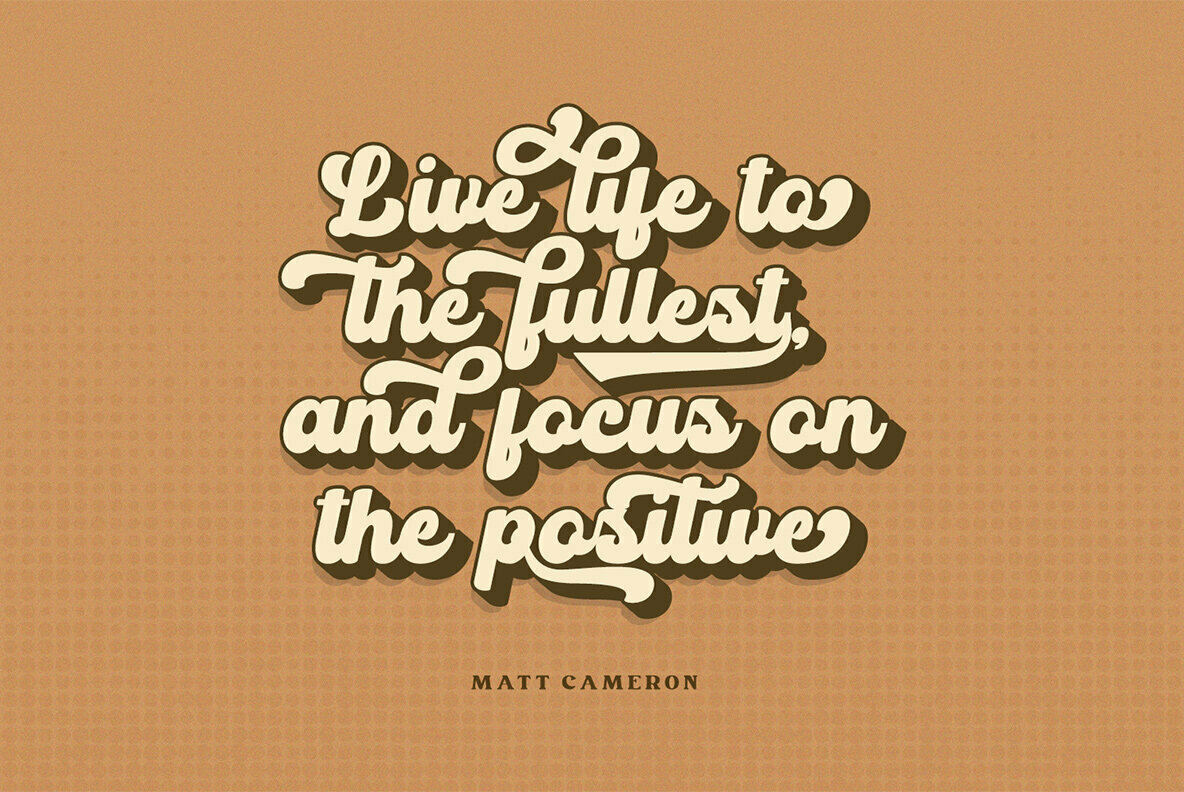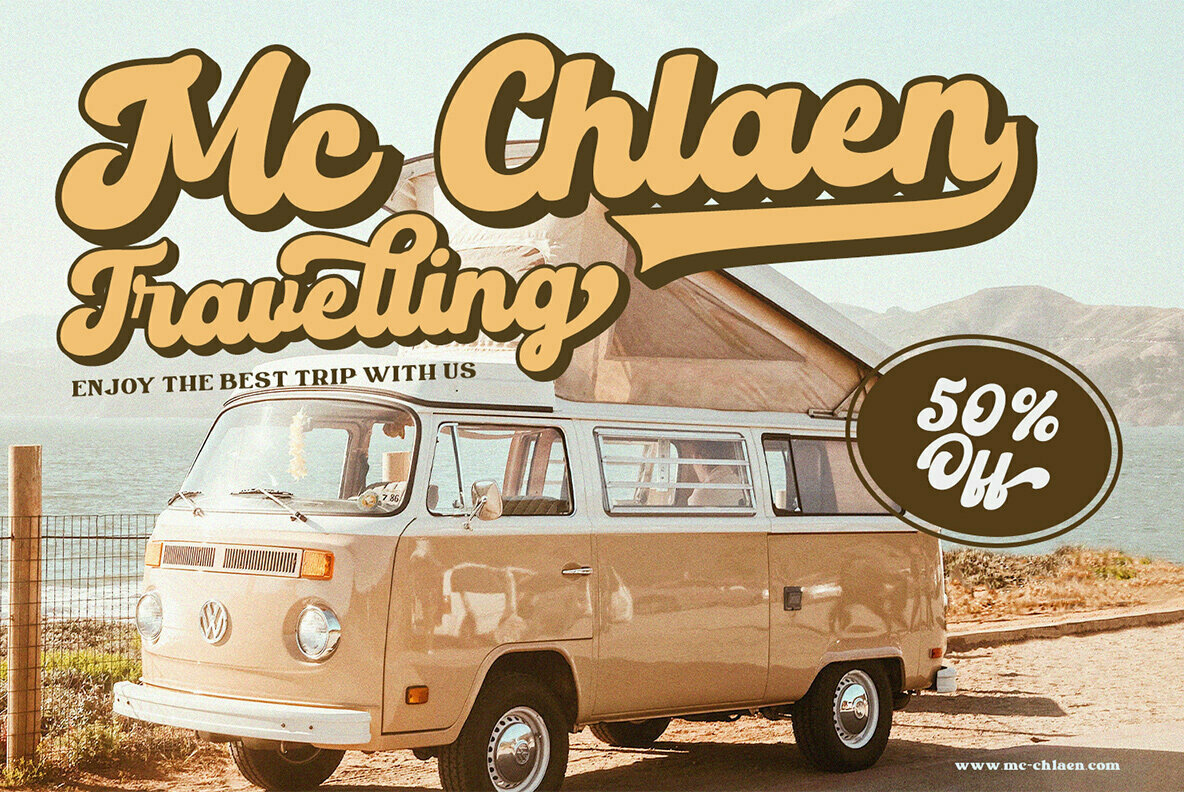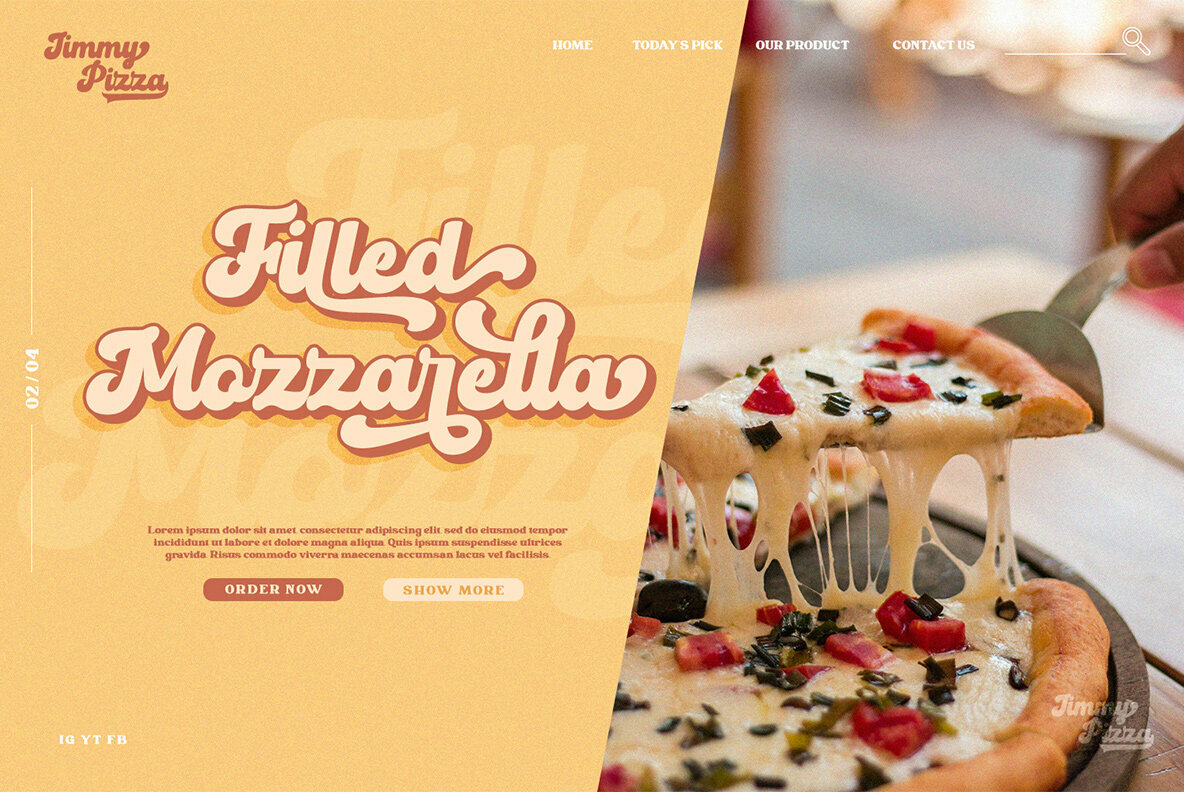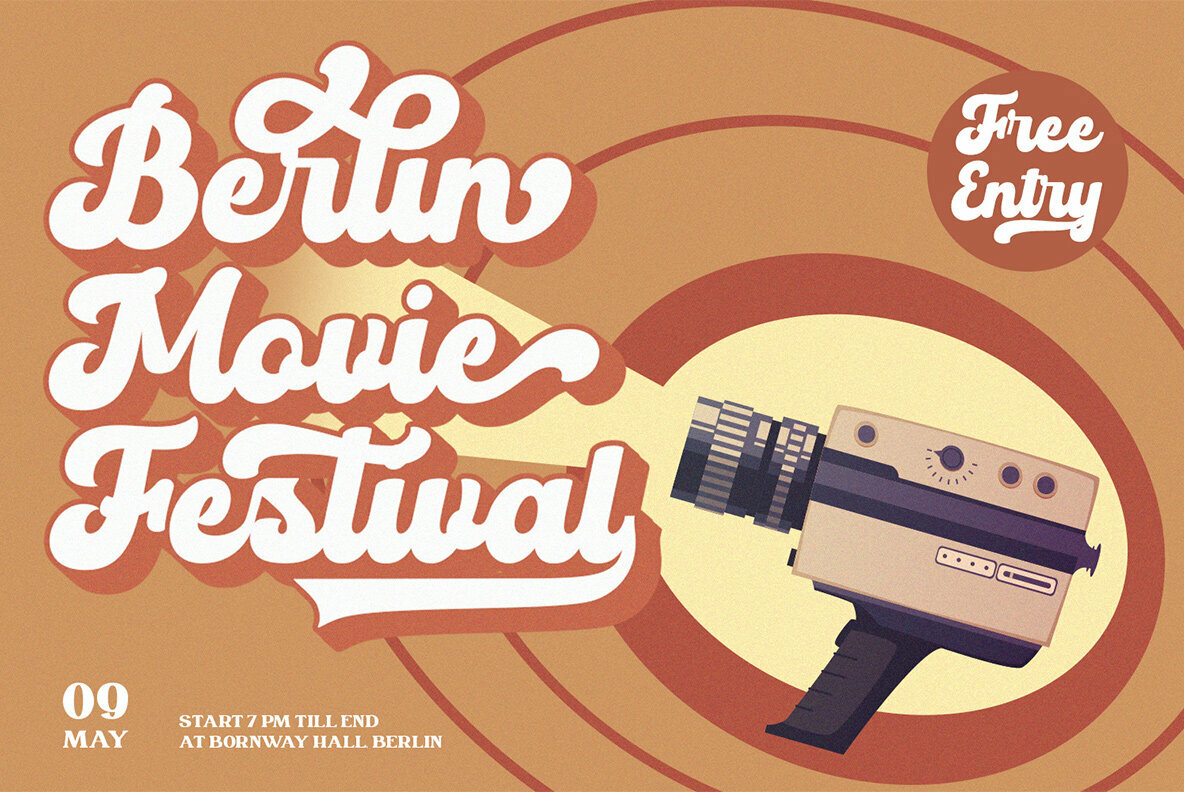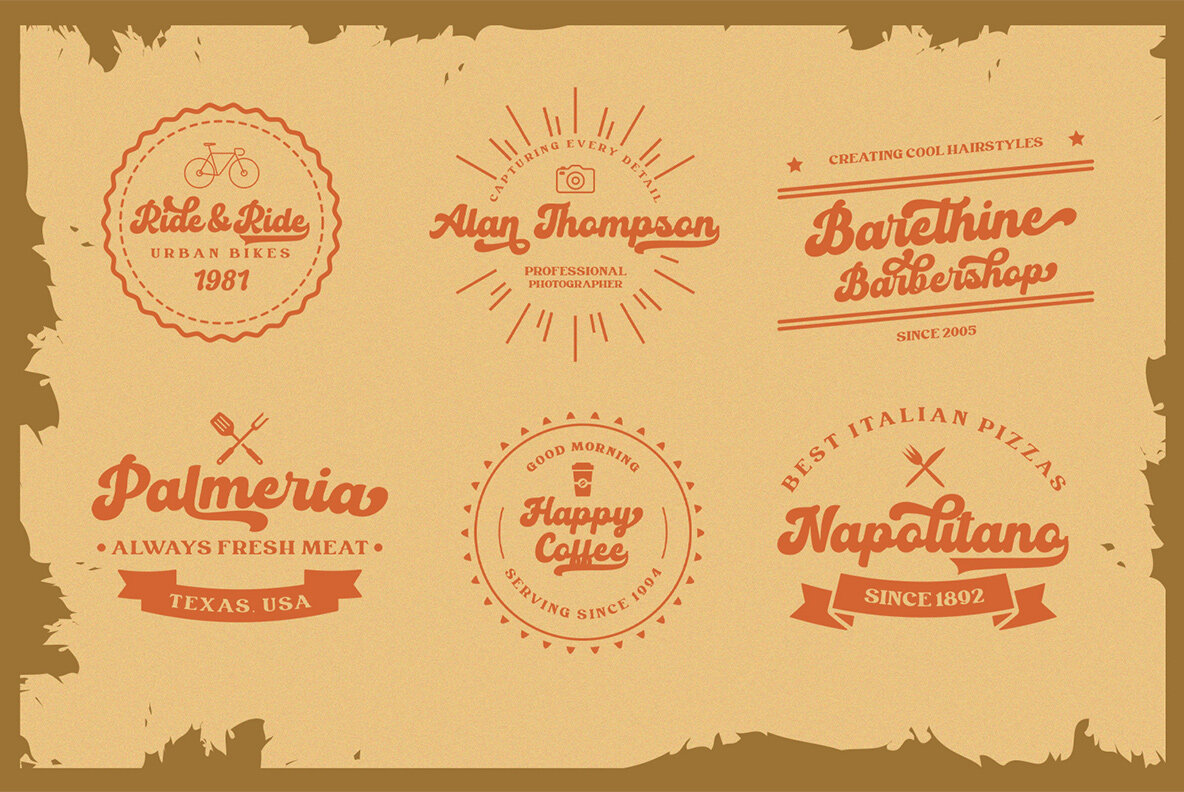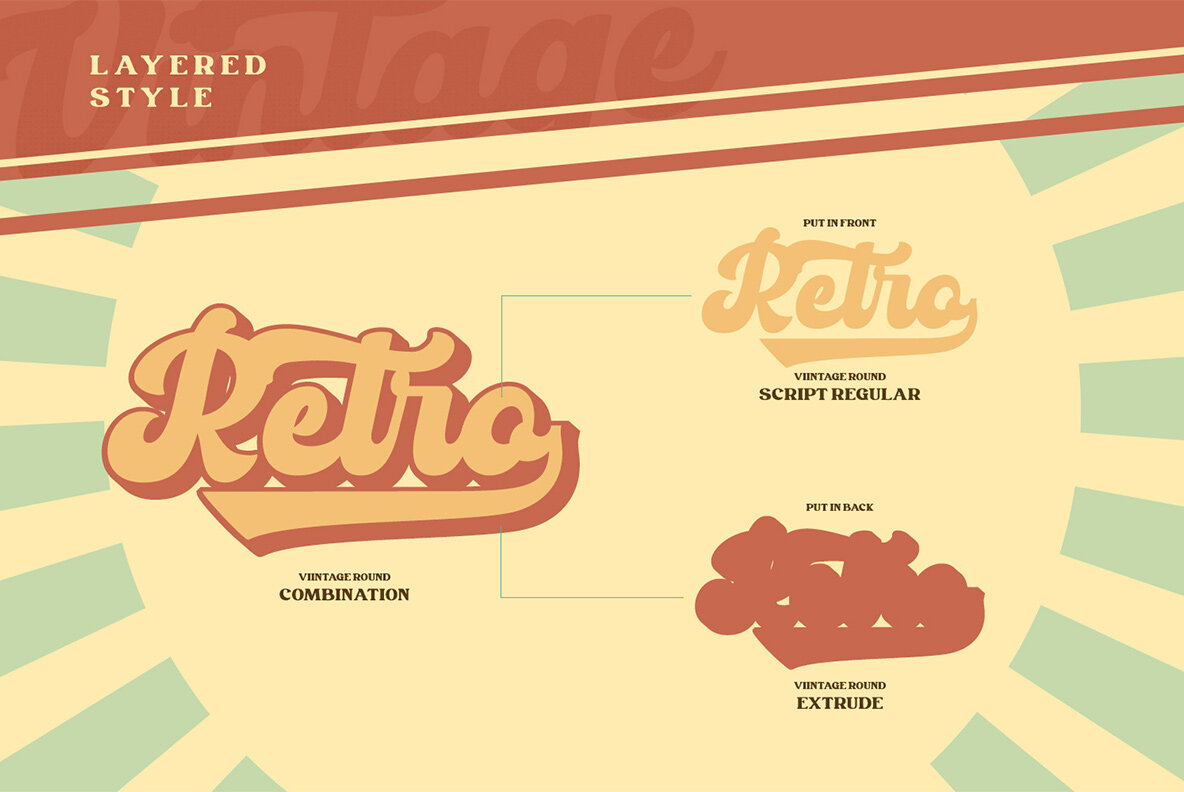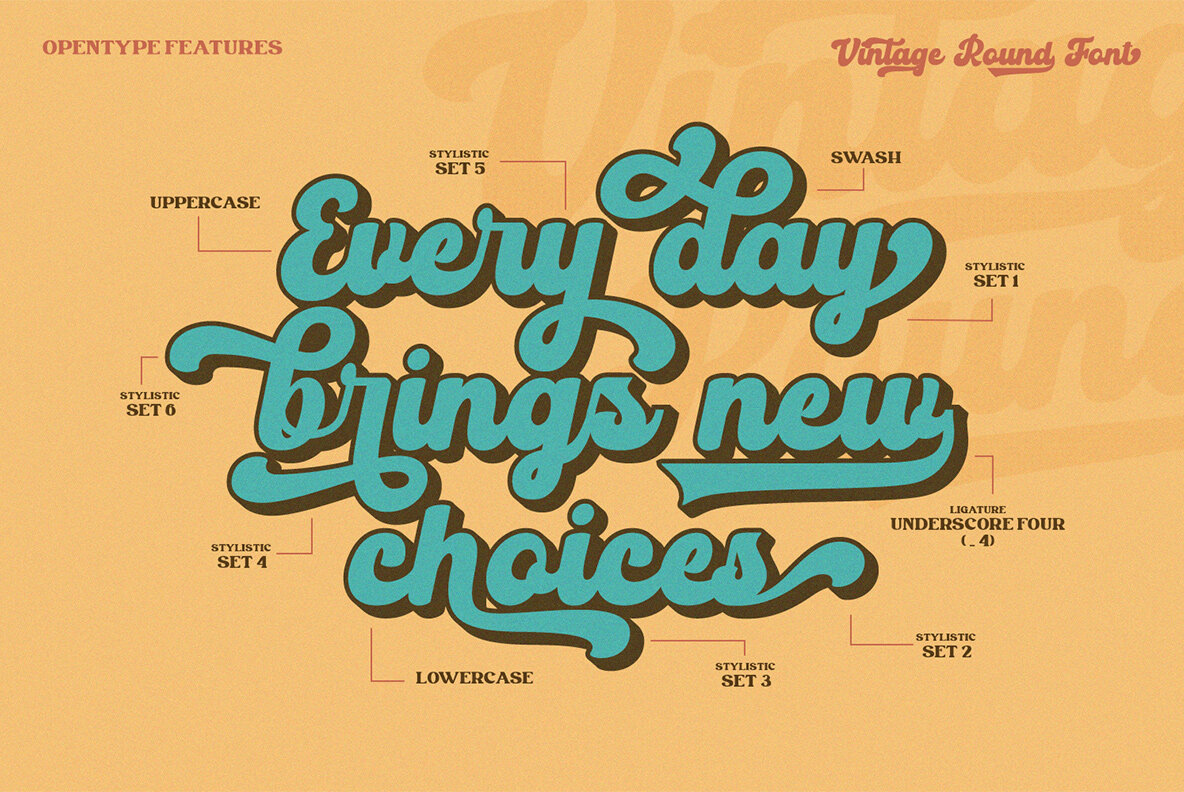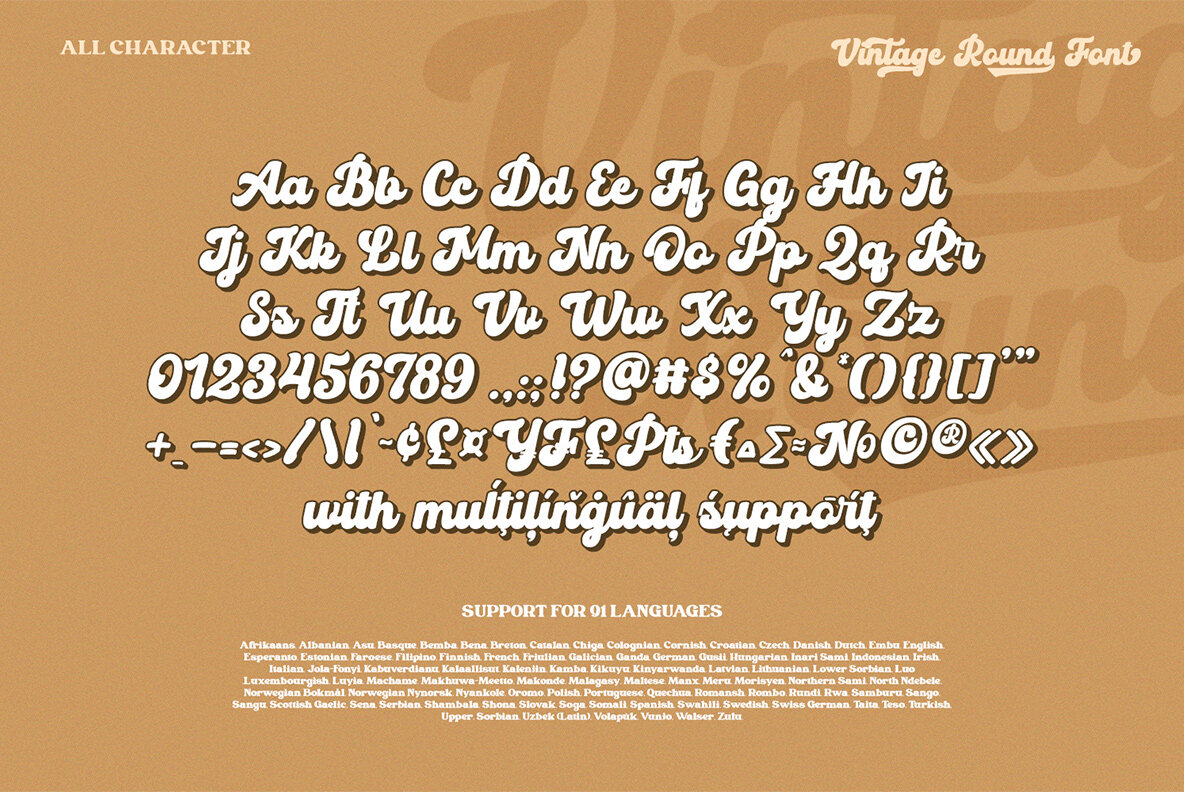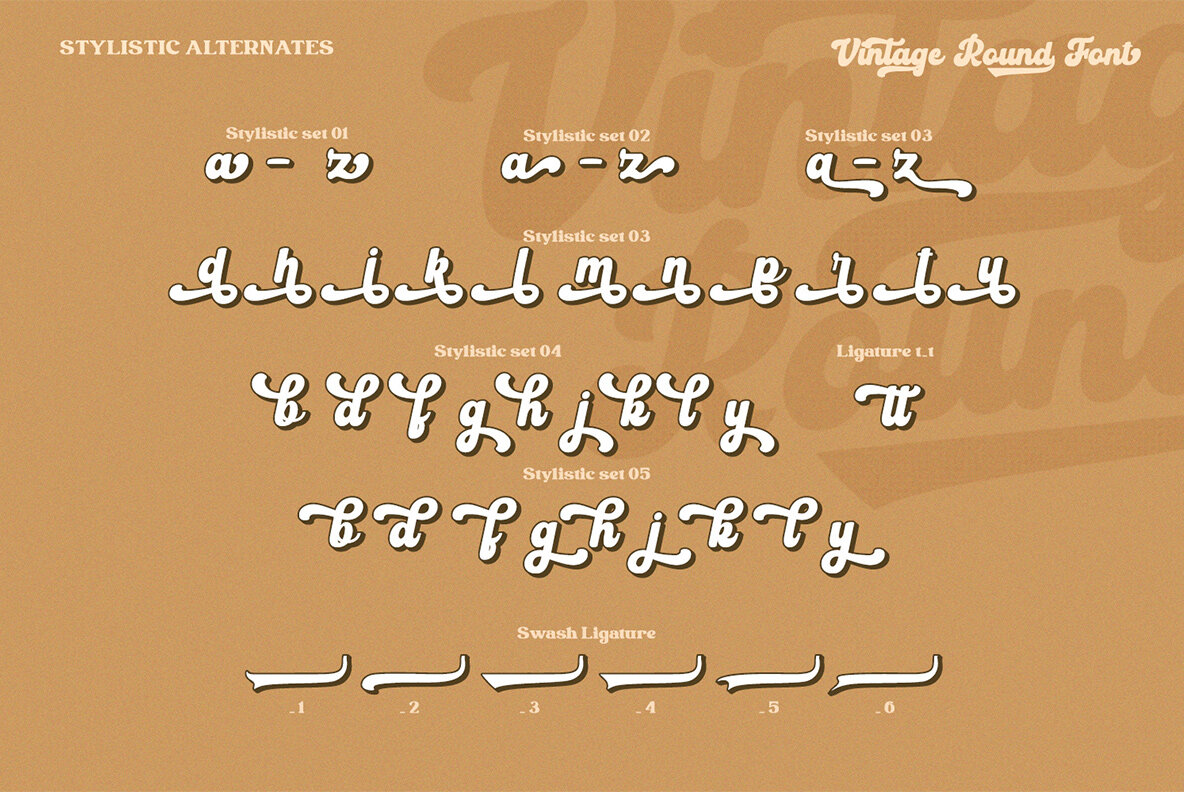
Vintage Round Font
Embrace the nostalgia of bold typography with Vintage Round. This distinct RetroScript font, characterized by its thick, angular letters and robust strokes, captures the essence of classic bubble font aesthetics. Ideal for a wide array of design projects, Vintage Round offers an extruding option that adds a unique flair to your creations. Whether you're crafting eye-catching packaging, memorable t-shirts, or impactful social media graphics, this font imparts a vintage charm that resonates across various mediums. With its emphasis on versatility, Vintage Round seamlessly adapts to create stunning printed quotes, logos, menus, and headings. Features:Vintage Round: A RetroScript Delight for Bold Designs